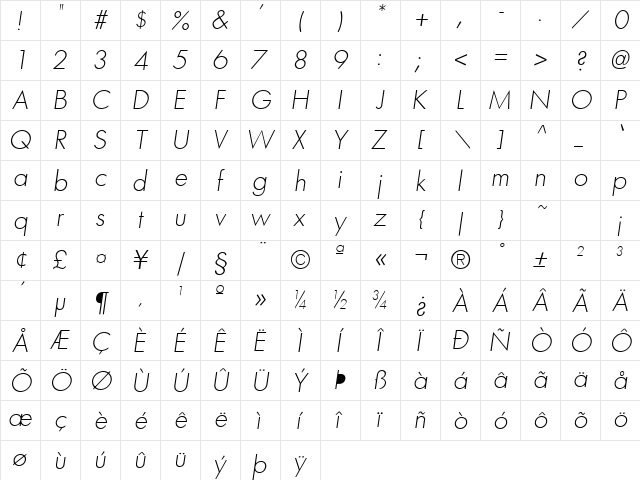
FutureLight Oblique Font Preview
Design Context for FutureLight Typeface
FutureLight has a distinctly futuristic character, with geometric precision and clean angles that feel at home in technology, gaming, and sci-fi contexts. The dynamic lean of this cut emphasises speed and emphasis in any layout. Its slender proportions lend an understated elegance to any composition.